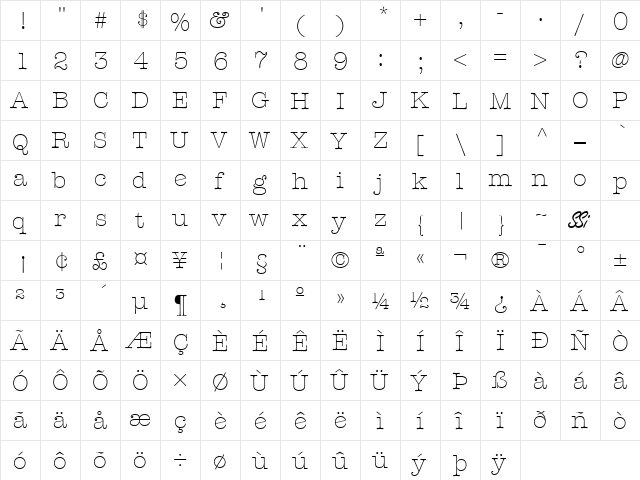
Keyboard Light Alternate SSi Light Alternate
Design Context for Keyboard Light Alternate SSi Typeface
Keyboard Light Alternate SSi takes a measured approach to typography — its balanced proportions and neutral character make it a reliable workhorse for both digital and print work. The delicate stroke weight brings airiness and refinement to layouts.